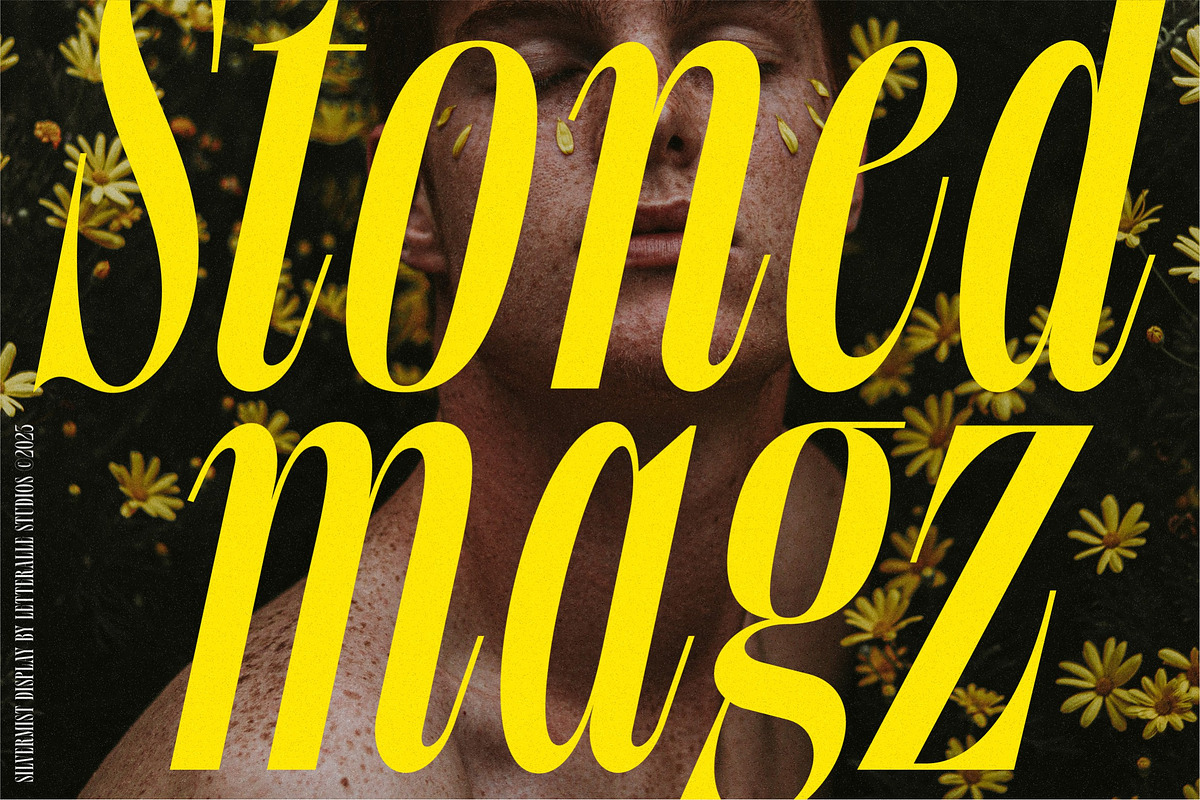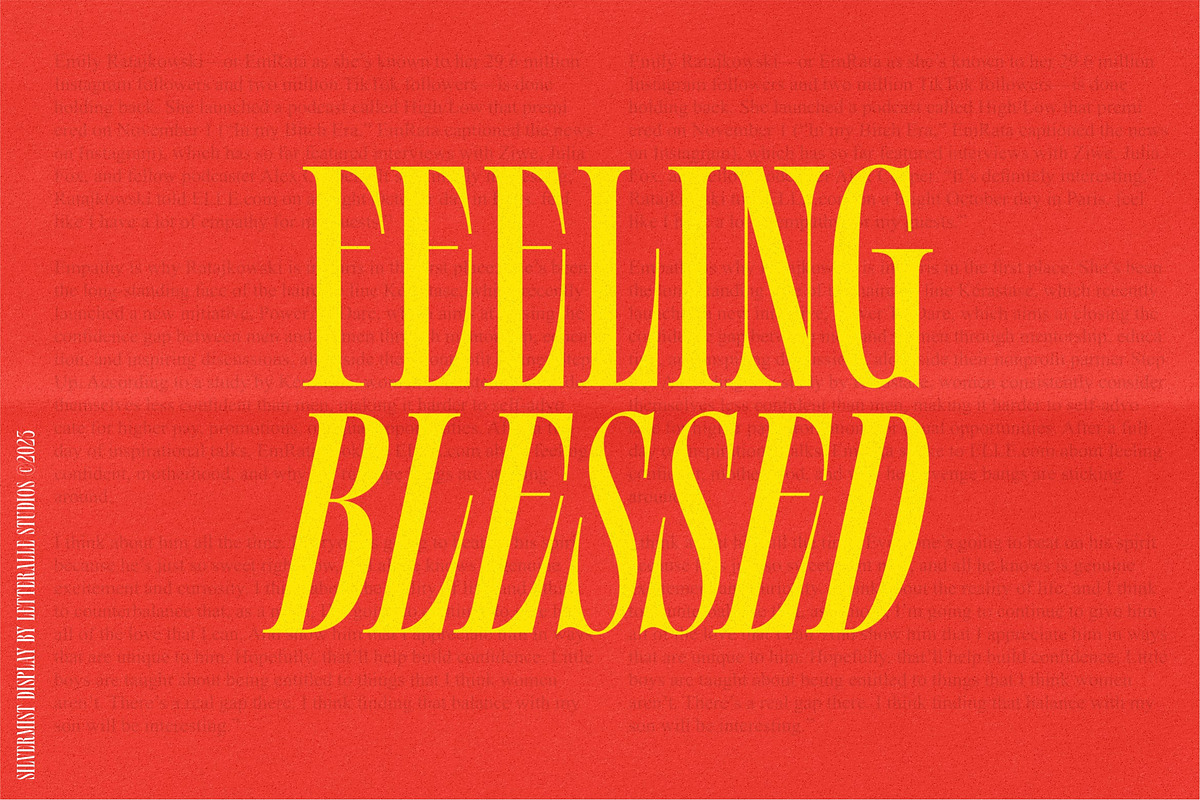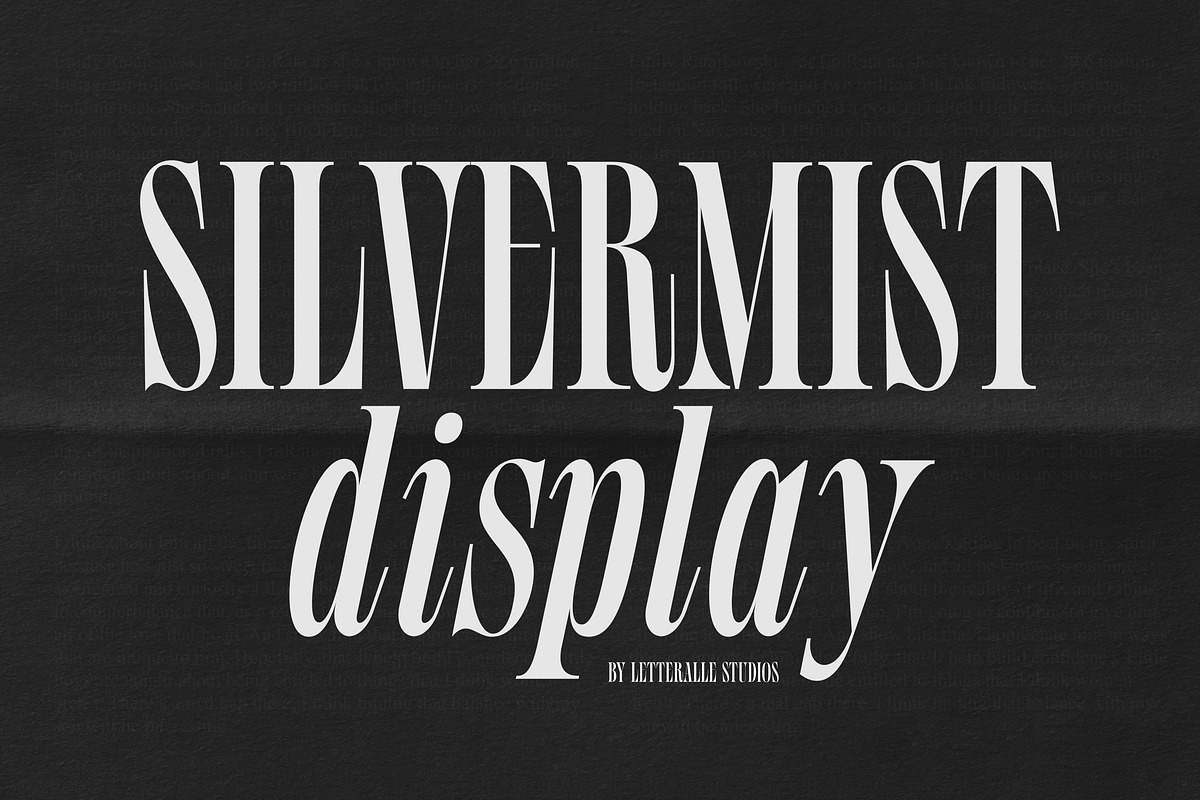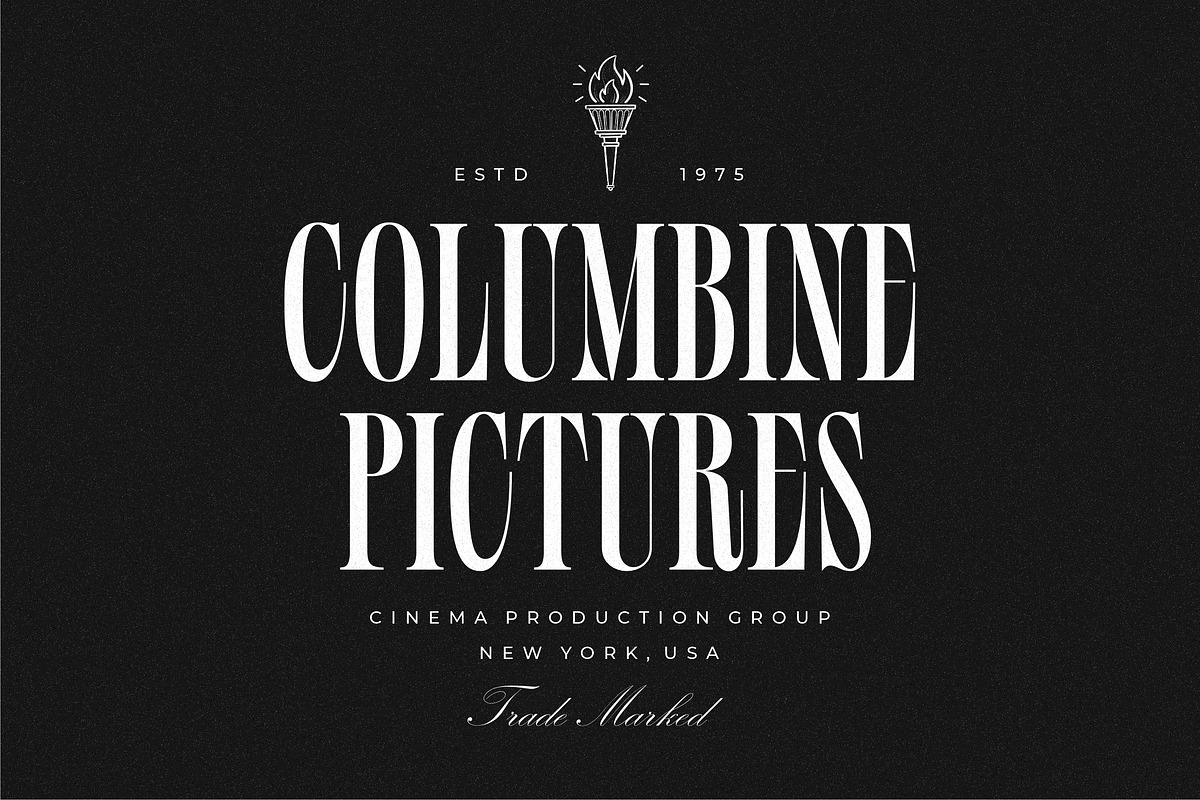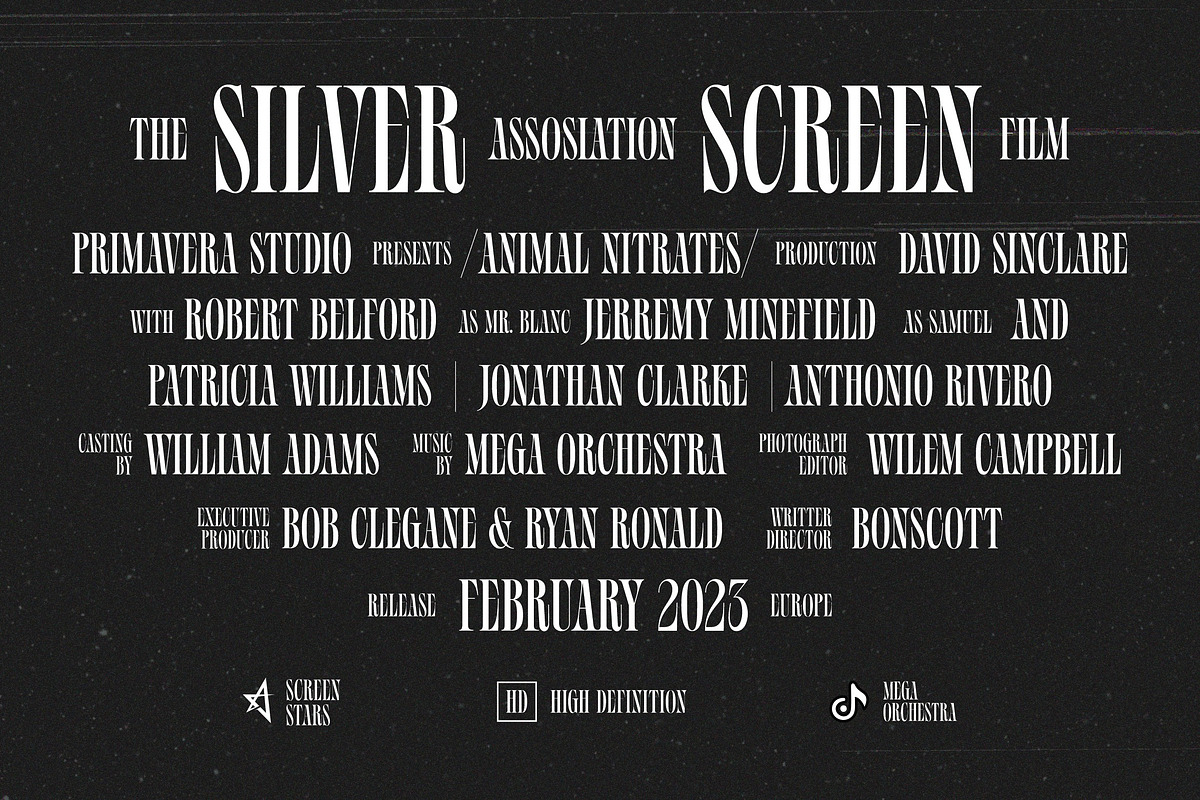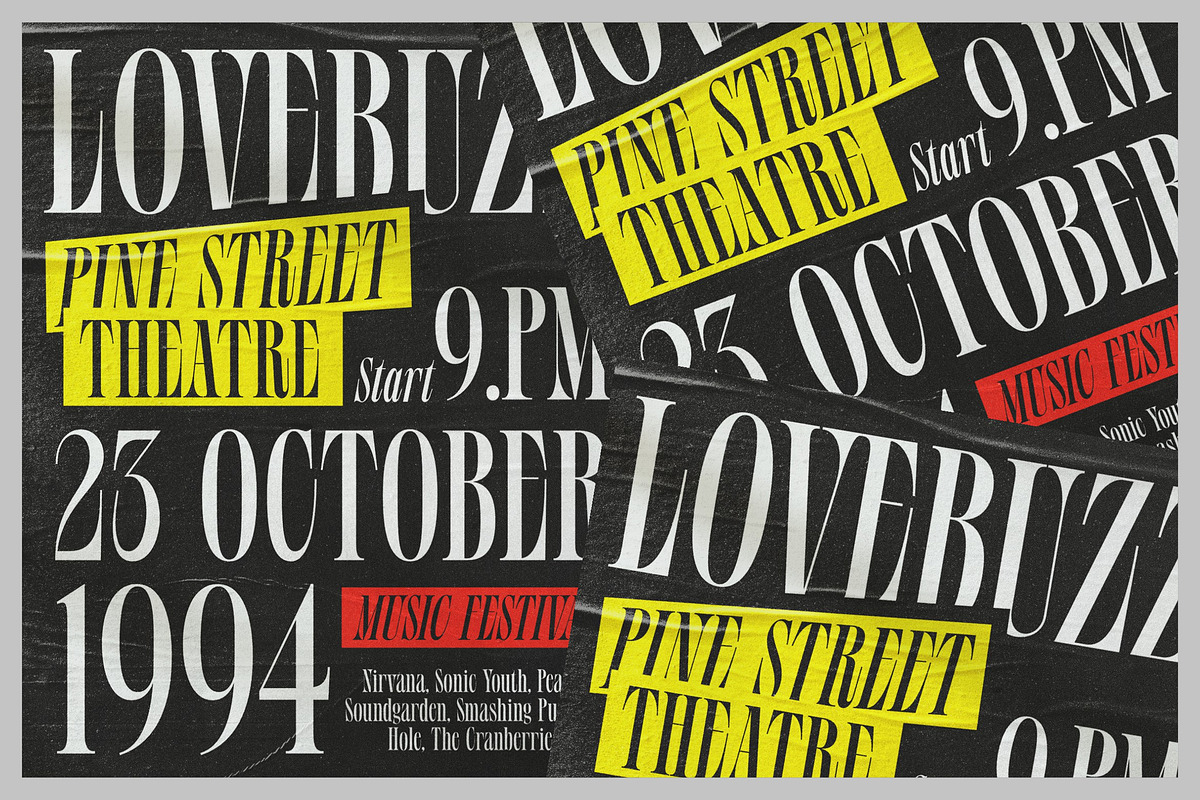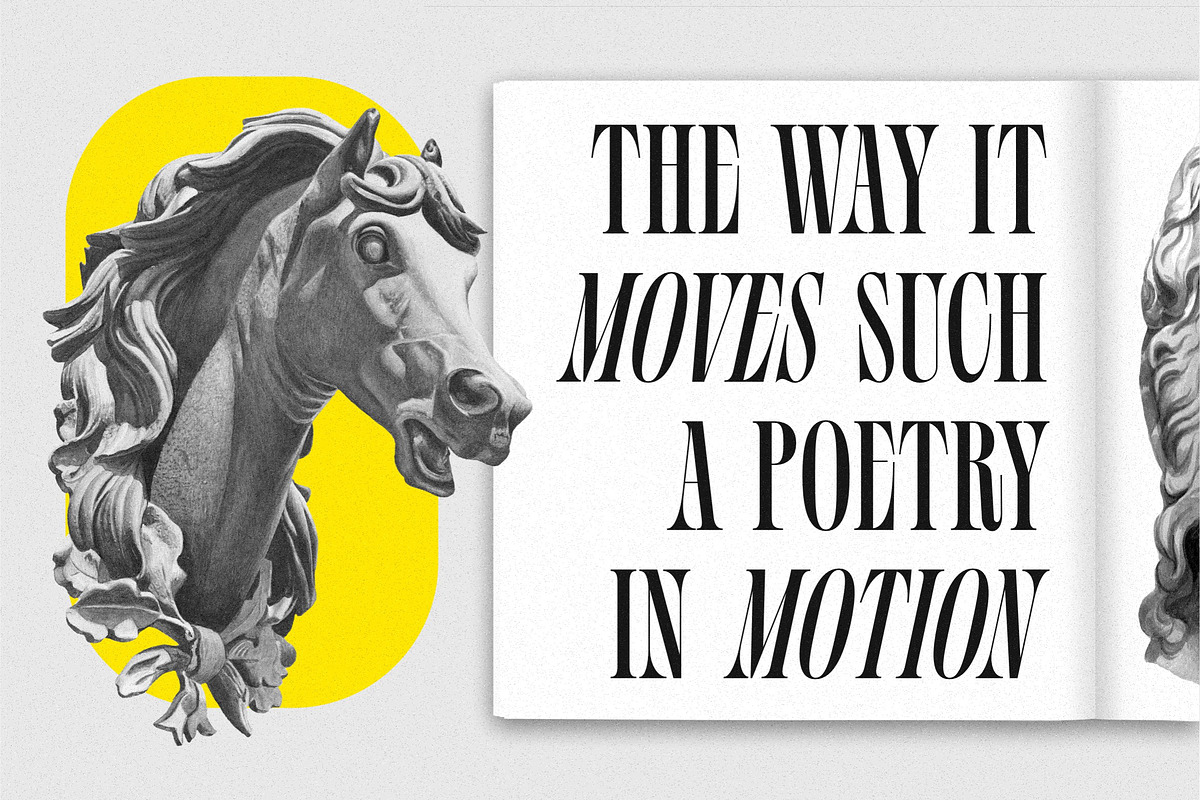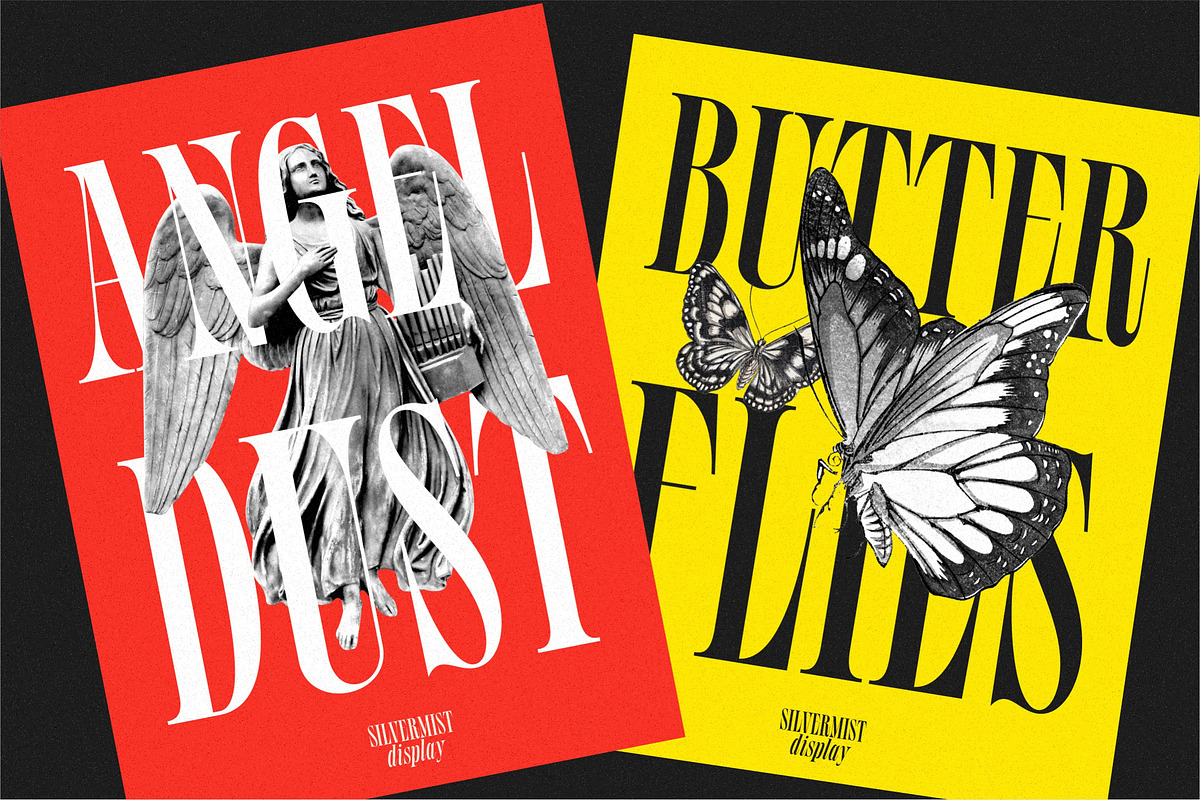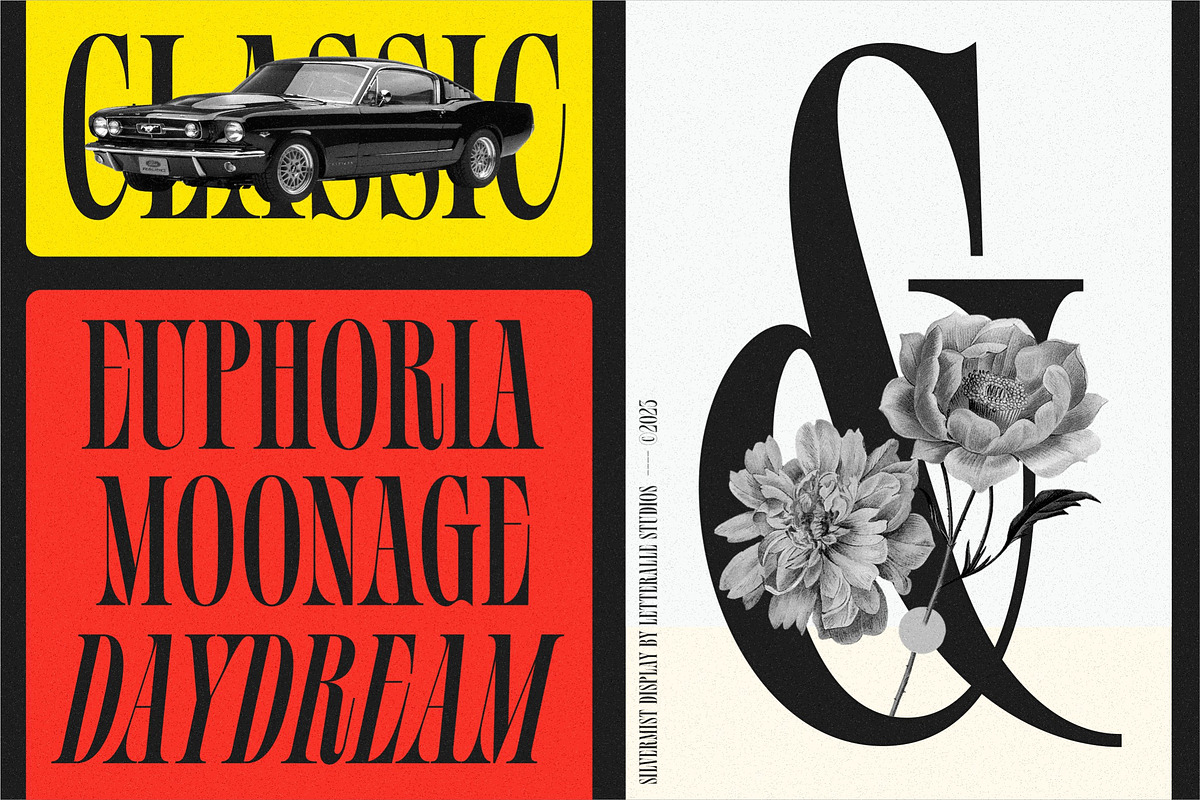
Silvermist Display Serif
Silvermist is made to express things in a masculine and assertive way. With high letters, it makes it have a more dominant impression.
Silvermist is perfect for display purposes such as editorial projects, Logo design, Music Album, Clothing Branding, product packaging, magazine headers, or simply as a stylish text overlay to any background image.
- Multilingual Accents.